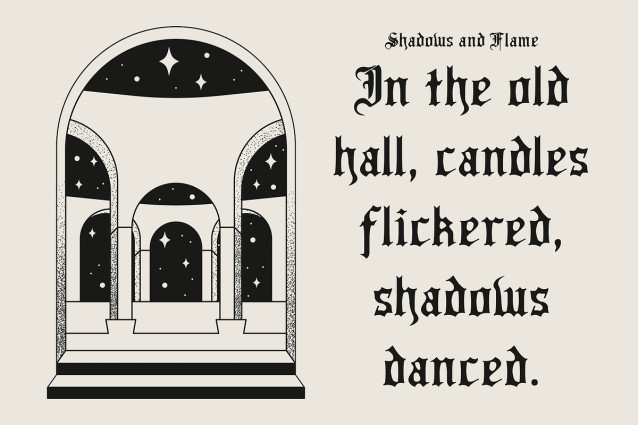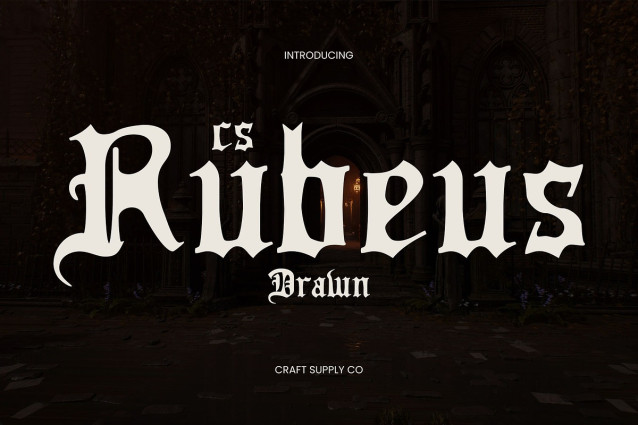
CS Rubeus Drawn Font: Where Gothic Tradition Meets Handmade Expression Old English Display Font with Drawn Texture This is a dramatic Old English display font that blends medieval ornamentation with historical depth. Its intricate letterforms recall centuries-old manuscripts, while the drawn texture introduces a handmade aesthetic that feels raw, expressive, and unique. This fusion of history and artistry makes it a commanding choice for impactful designs. Drama and Mystery in Every Stroke Every curve and edge of radiates drama and intensity. The font’s ornamental strokes evoke gothic mystery, creating a visual language that feels bold and powerful. Its expressive qualities make it ideal for projects that need to capture attention with both heritage and edge. A Handmade Aesthetic for Distinctive Design The drawn texture transforms a traditional Old English typeface into something more personal and crafted. Each letter carries an artisanal quality, softening the rigid historical forms and enhancing their emotional impact. This handmade detail ensures your design stands apart with authenticity. Perfect for Branding, Posters, and Bold Titles From gothic-inspired branding to striking poster layouts and commanding book titles, excels in projects that demand strong visual presence. It’s particularly suited for bold cultural or artistic themes, where its historical richness and handmade energy add both character and distinction. Download Type Speciment: — What you get : – CS Rubeus Drawn Regular – CS Rubeus Drawn Italic Features : – Uppercase and lowercase characters – Numerals and Punctuation (OpenType Standard) – Accents (Supports Multilingual Characters) – PUA Encoding — You can use this typeface without needing any specialized software.